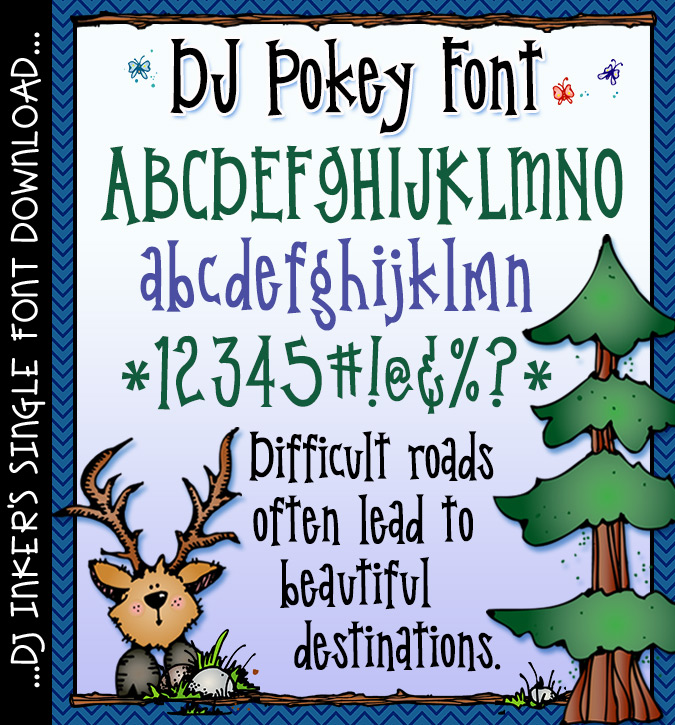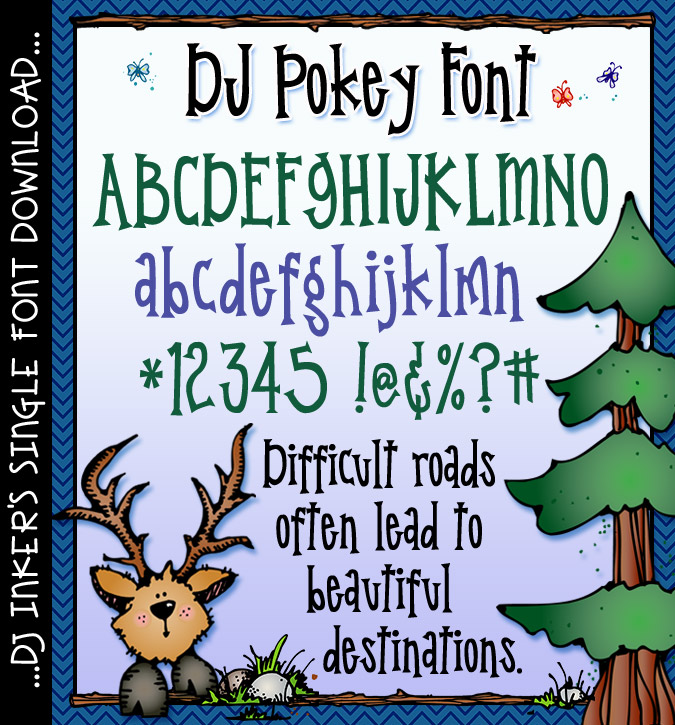
DJ Pokey font is a fun, sharp looking font for typing up a smile by DJ Inkers
Looking for a typeface that's as bold as your ideas? DJ Pokey strikes the perfect balance between clean, sharp lines and a playful charm that will really make your projects pop! Whether you're designing DIY home decor or a standout school flyer, this font delivers a professional look without losing the fun. Type up a smile with DJ Inkers and give your next project the "edge" it deserves!